Introducing Space Autos, a sleek, futuristic display font designed to make a striking impression. Presented in all caps with a balanced weight that’s not too thick, Space Autos combines sharp, angular corners with a cutting-edge style. Space Autos delivers a clean, forward-looking look that stands out in any space. In addition, enjoy the features here.
Kyron is a new sans serif font family designed to bring a modern, professional edge to any project. With 5 distinct weights ranging from Regular to ExtraBold, this font offers the flexibility and versatility that designers and business professionals need. Its clean lines and balanced structure make Kyron perfect for a wide range of uses, from branding and logo design to website and print applications.
Malinton Display Sans Font Family is more than just a font - it's a personality booster for your designs! This versatile display sans serif comes with 9 carefully crafted weights from Extra Light to Black, making it perfect for both cheerful headlines and serious statements. Featuring unique inktraps, playful emoticon alternatives, and comprehensive character support, Malinton brings the perfect blend of professional structure and friendly vibes to your creative projects. Whether you're designing for brands, social media, or editorial content, let Malinton's distinctive character make your message unforgettable.
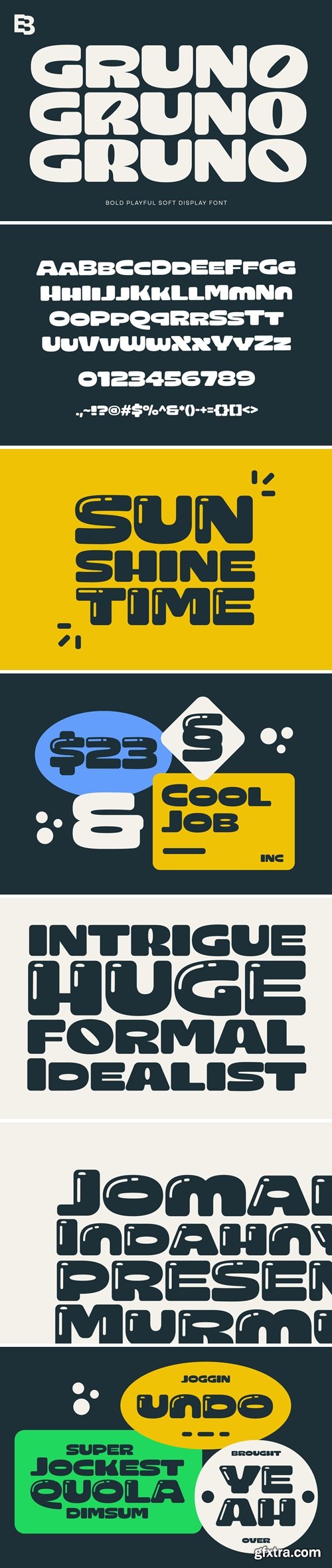
Gruno is a bold and playful display font that adds a fun and vibrant touch to any design project. With its soft and rounded letterforms, Gruno exudes a unique and pop characteristic that is sure to capture attention. This font family offers two distinct styles: Gruno Normal and Gruno Bubble. The Bubble style features a light shade effect, reminiscent of a balloon, adding a whimsical and playful element to the font.